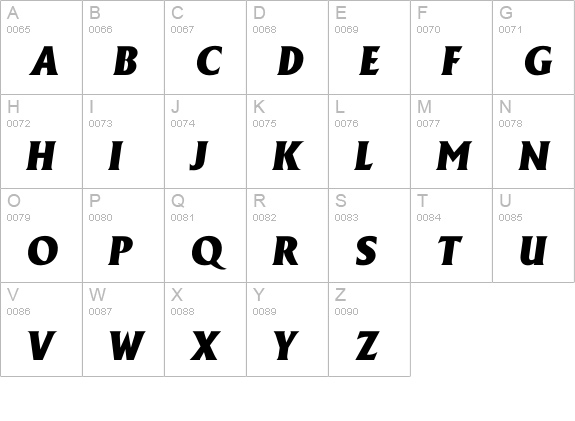
Iadelon ExtraBold Font Details
Iadelon ExtraBold is an extra-heavy, attention-grabbing variant in the Iadelon typeface family \xE2\x80\x94 well suited to high-impact headlines, posters, and bold branding.
Introducing Iadelon ExtraBold, a meticulously crafted font that exudes confidence and power. With its strong and commanding presence, Iadelon ExtraBold is perfect for making a bold statement in any design project. This font boasts an exceptional level of elegance and versatility, making it suitable for a wide range of applications. Whether you're working on branding, advertising, packaging, or editorial design, Iadelon ExtraBold will elevate your work to new heights. The carefully designed letterforms of Iadelon ExtraBold are characterized by their bold strokes, sharp angles, and distinct serifs. Each character has been meticulously crafted to ensure a harmonious balance between legibility and visual impact. Iadelon ExtraBold also offers a wide range of language support, ensuring that your message can be effectively communicated to audiences around the world. From English to Spanish, French to German, and beyond, this font has you covered. What sets Iadelon ExtraBold apart is its unique attribute - it is freely available to download at FontsMarket.com. This means that you can enhance your design projects without any additional cost, making it an ideal choice for budget-conscious designers, students, and professionals alike. Don't miss the opportunity to add Iadelon ExtraBold to your font library. Its bold and captivating aesthetic, coupled with its availability as a free download, makes it a must-have for any designer looking to make a lasting impression. Take your designs to the next level with Iadelon ExtraBold and let your creativity soar.